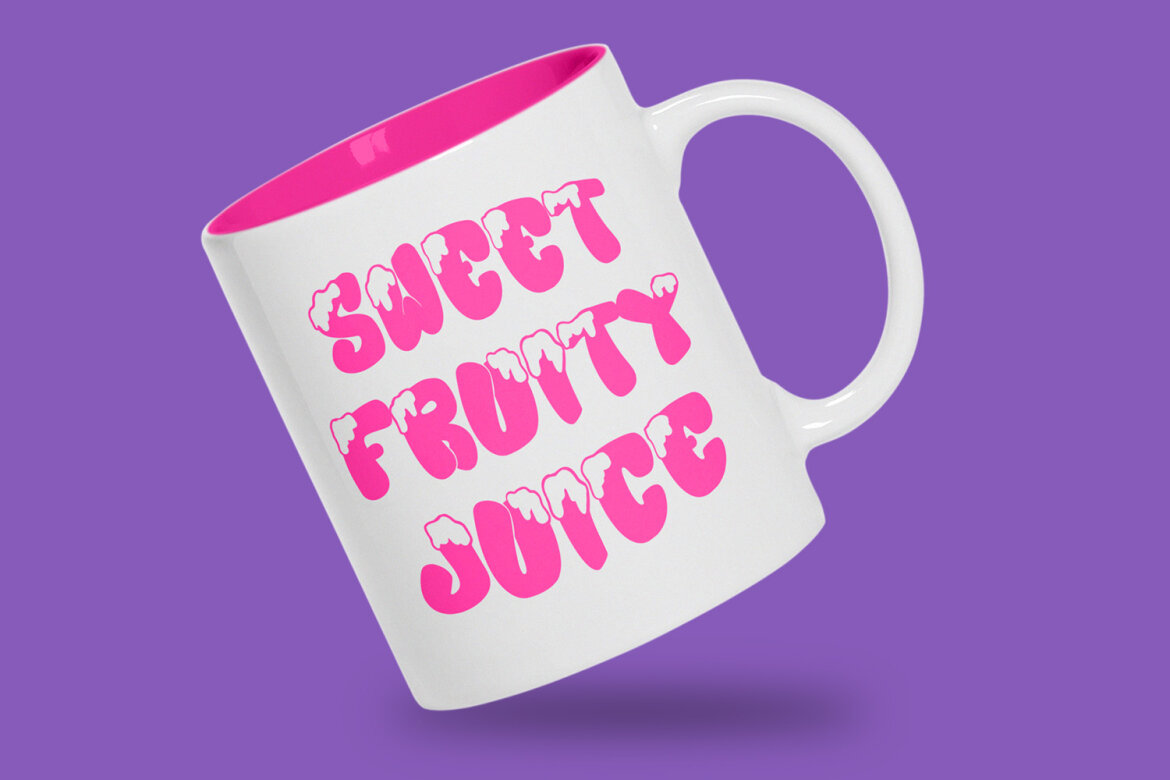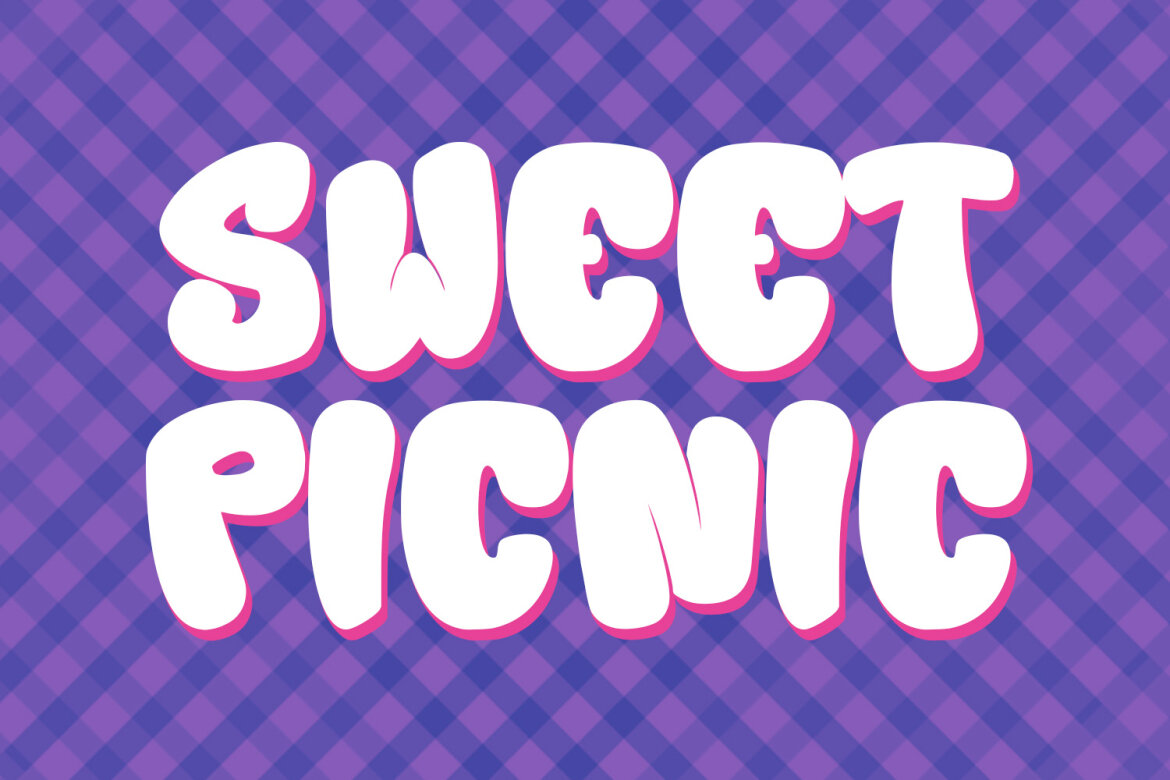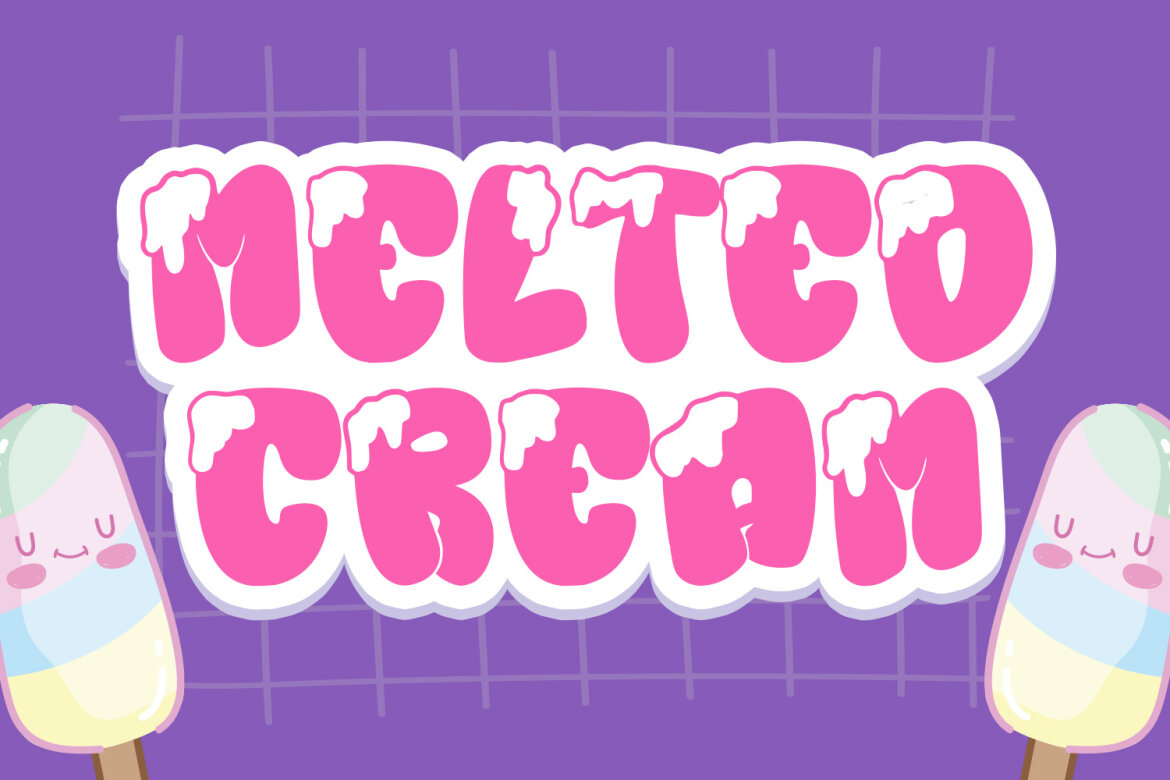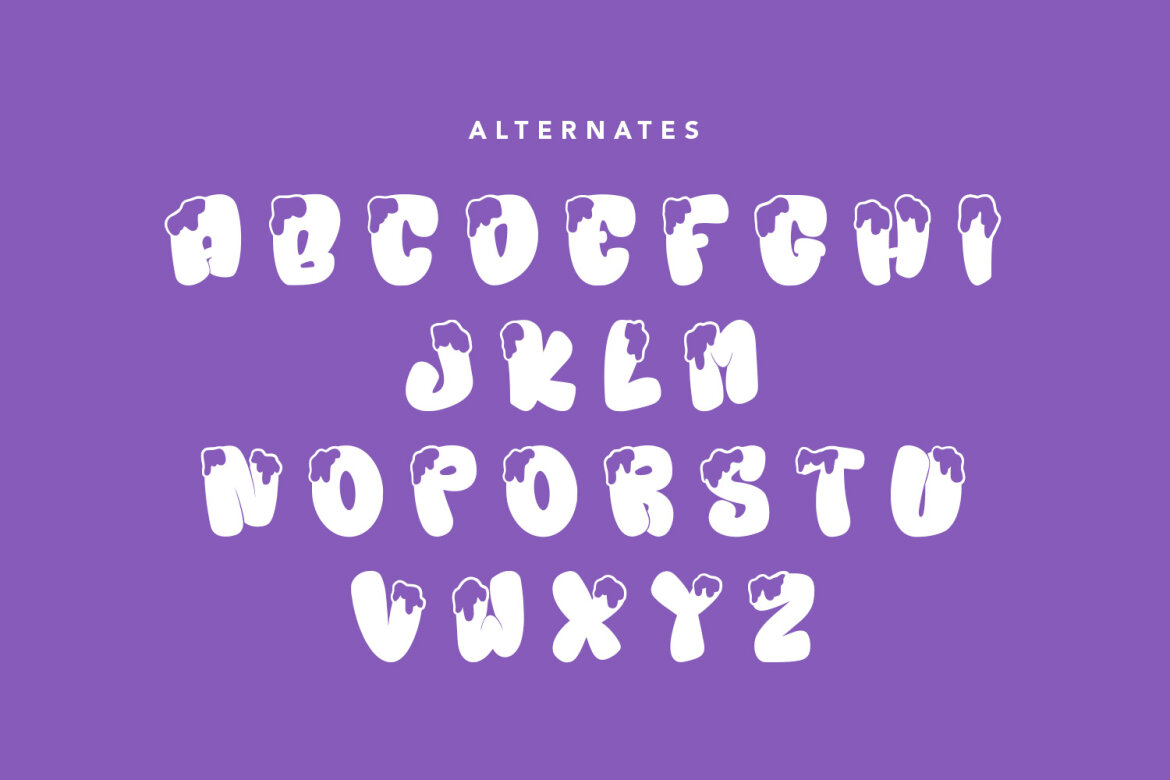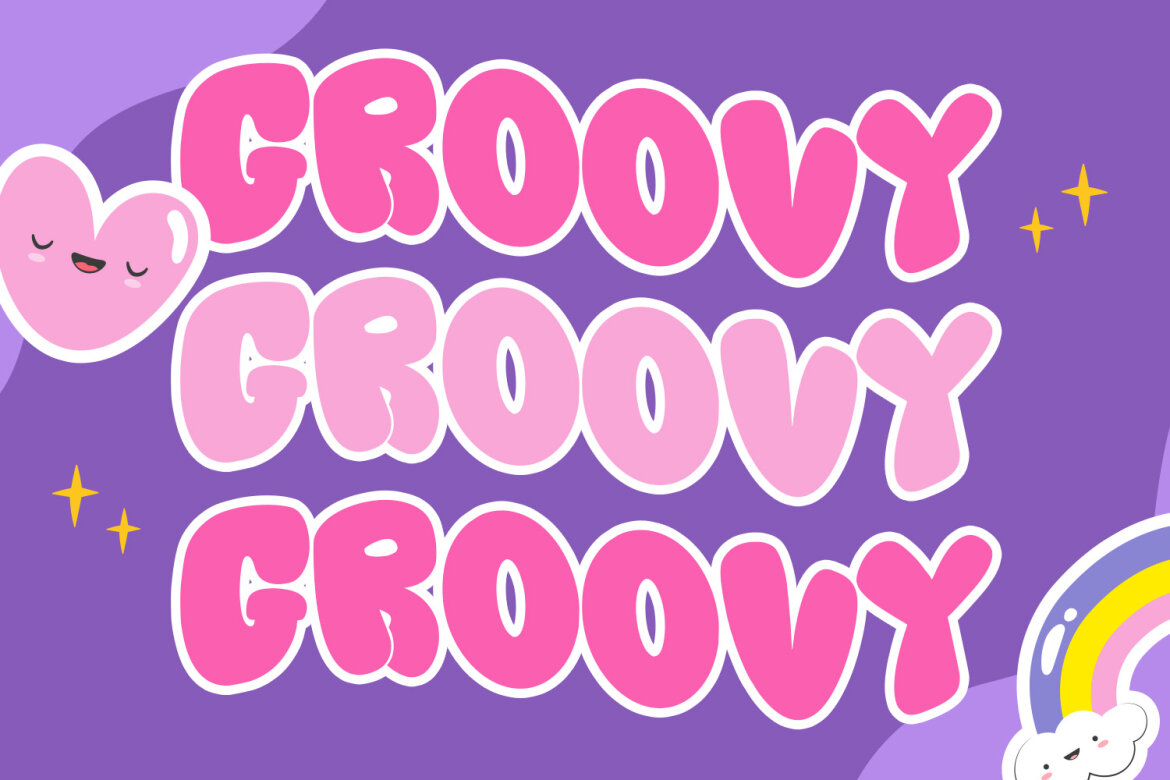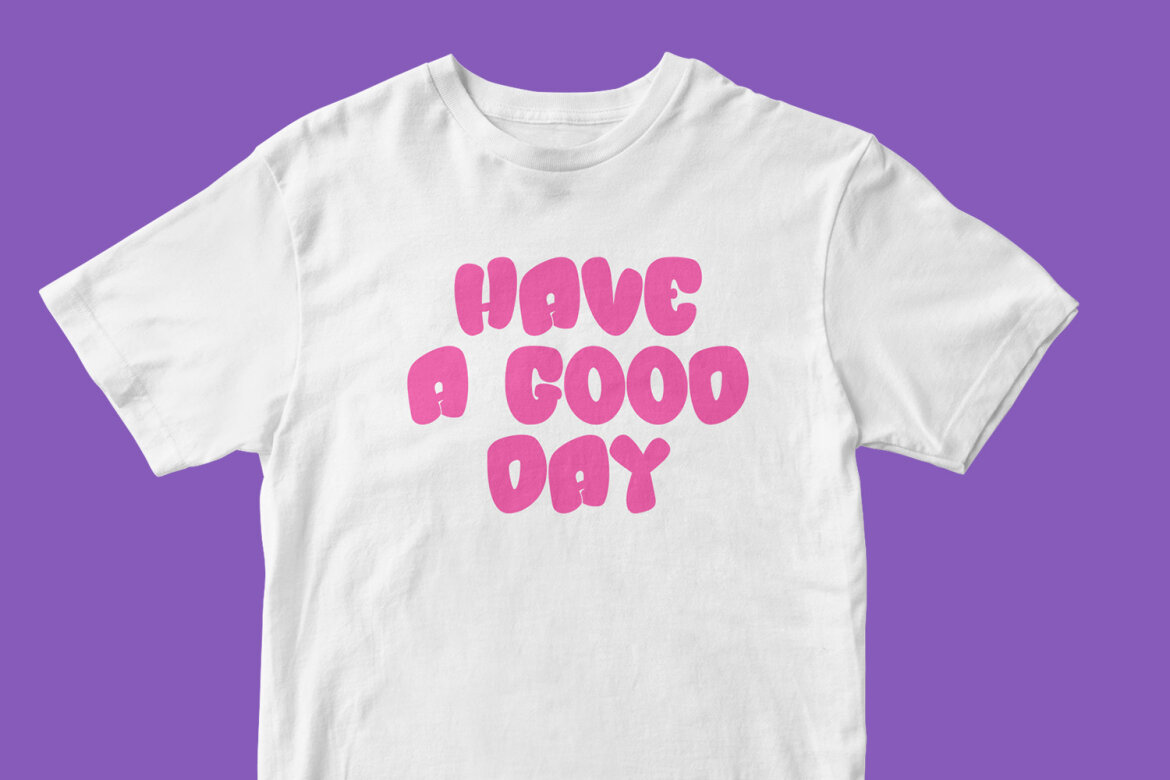
Creammie Groovy FREE Font
Creammie
Creammie Groovy Decorative Display Font. Bold stroke, fun character with a bit of ligatures and alternates. To give you an extra creative work. Creammie font support multilingual more than 100+ language. This font is good for logo design, Social media, Movie Titles, Books Titles, a short text even a long text letter and good for your secondary text font with script or serif. Make a stunning work with Creammie font.